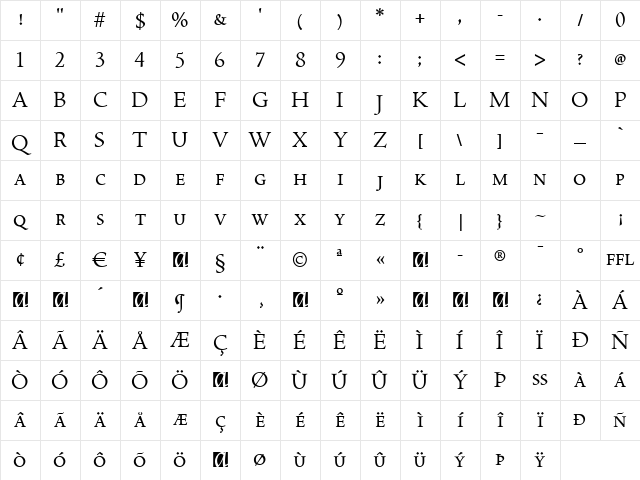
Spira-RegularSmallCaps Regular
Designer: Andy Stockley
Design Context for Spira-RegularSmallCaps
Spira-RegularSmallCaps is a composed and adaptable typeface that performs quietly and consistently across a wide range of design contexts.